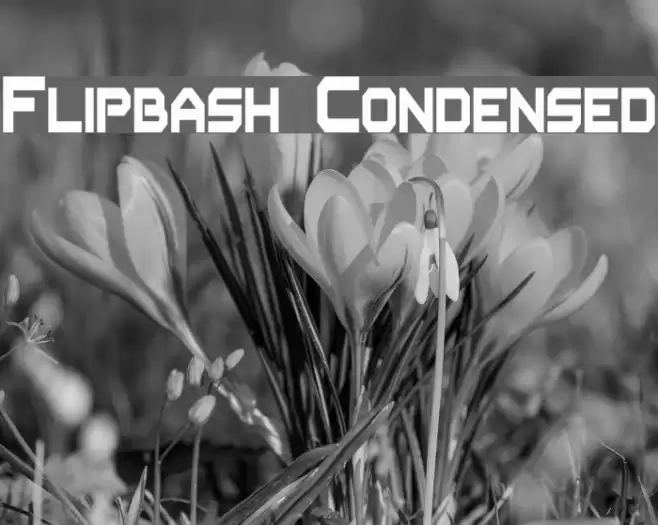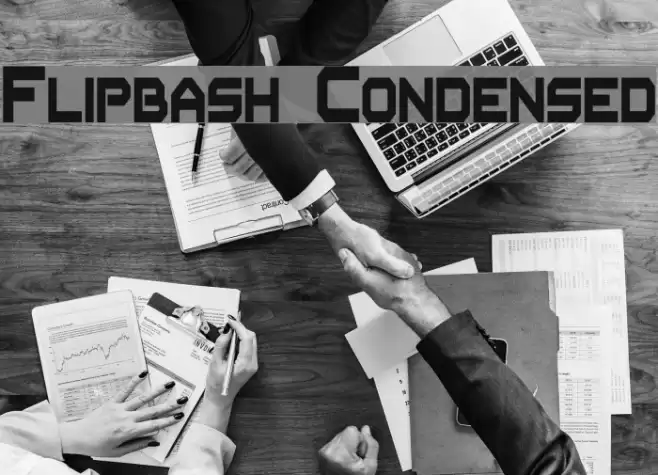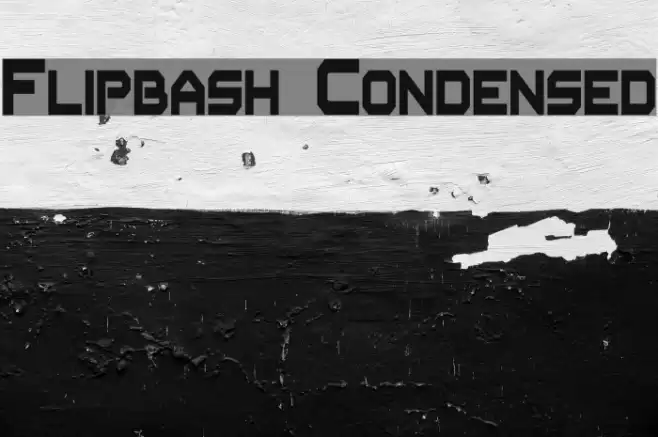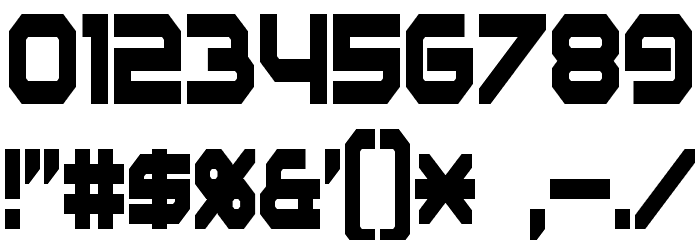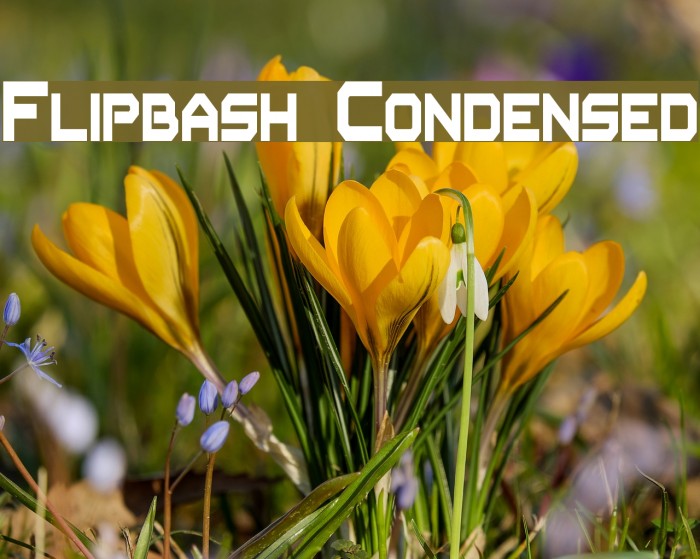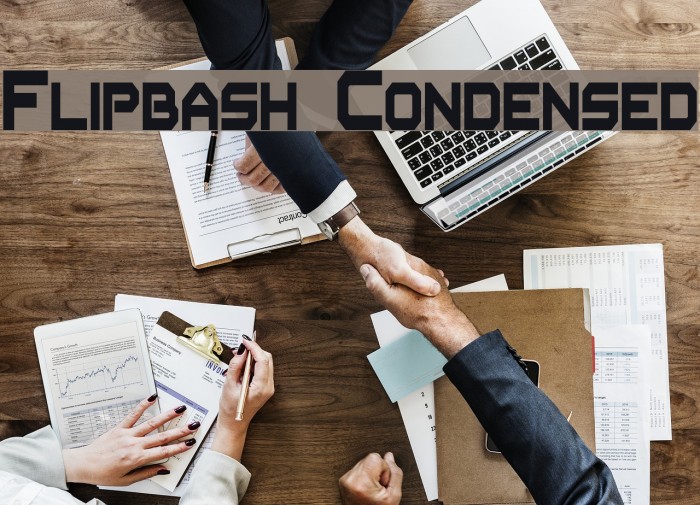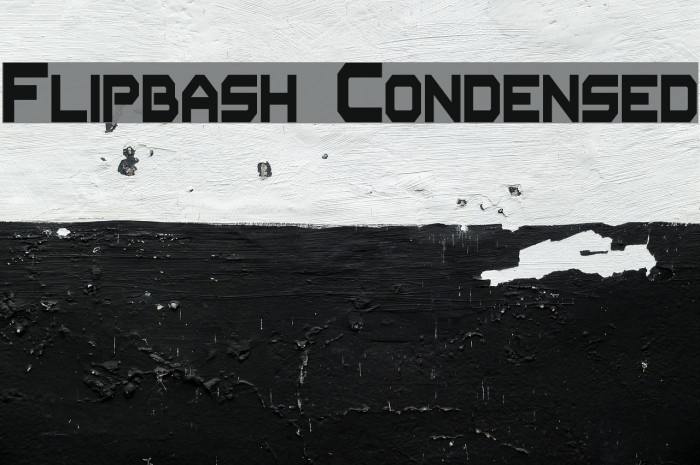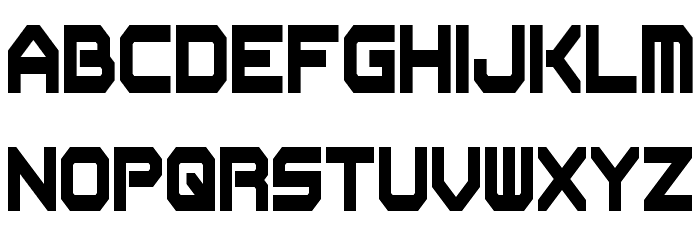
Flipbash Condensed Font
Flipbash Condensed Description
This font features a bold and geometric design, characterized by its angular and block-like letterforms. The characters are condensed, giving them a compact appearance that maximizes space efficiency. The uppercase letters are uniform in height, with sharp edges and a futuristic aesthetic. The numerals and special characters maintain the same bold and angular style, ensuring consistency across all glyphs. This font's strong presence makes it ideal for impactful and attention-grabbing designs.
A bold, geometric, and condensed font with a futuristic style from Uncategorized fonts.
- Proposed Projects: Ideal for use in technology branding, video game titles, posters, and any project requiring a modern and bold typeface.
- Character Spacing: Tight